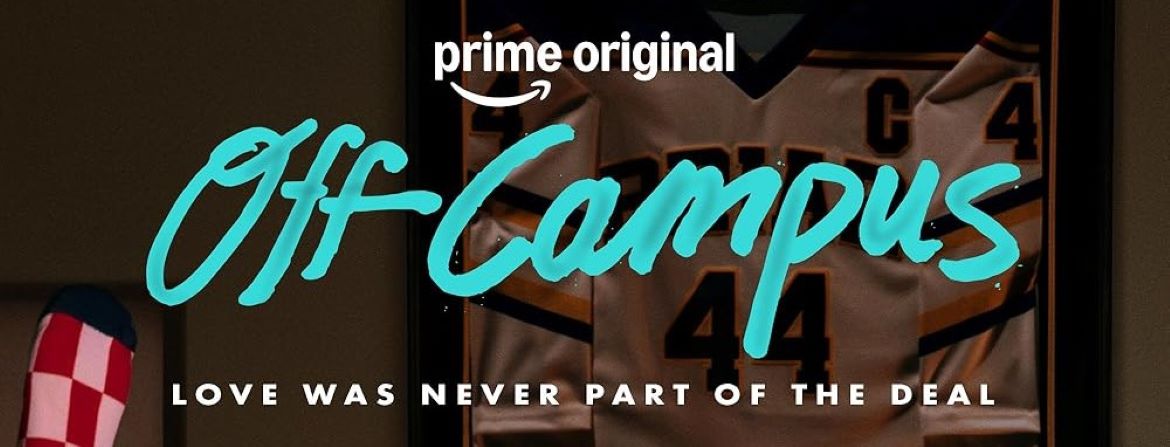
What Font Does Off Campus Use?
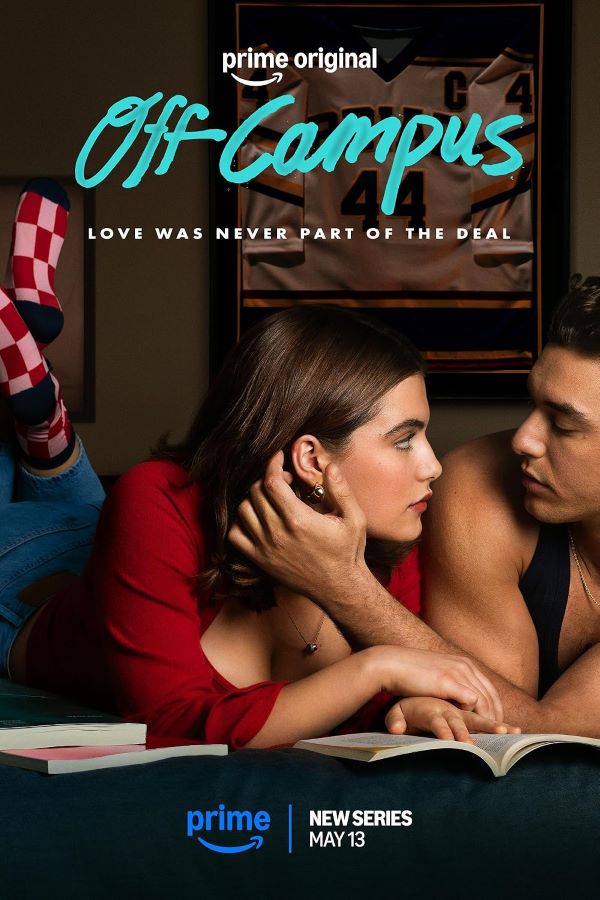
The Off Campus Font used in the film’s title design is a custom-designed handwritten typeface created specifically for the project’s branding and promotional materials. The lettering features a casual, organic style with natural pen strokes, fluid letterforms, and distinctive handcrafted details that give the title a personal and visually authentic identity. Because the original typeface is custom, it is not publicly available. However, there are free alternative fonts that closely capture its handwritten and casual appearance, making them suitable for fan art, poster recreations, and concept design projects.
About Off Campus
Off Campus is a romantic drama that explores the unexpected connection between a music student and the university’s star hockey player, set against the backdrop of college life. The film stands out through its authentic storytelling, character-driven narrative, and emotional depth, capturing the complexities of young love and the bonds that define adulthood. With a focus on genuine friendships and meaningful relationships, the movie resonates through its relatable portrayal of finding love in unexpected places. Its title typography, often inspiring designers searching for free fonts, plays an important role in establishing mood and visual recognition, helping reinforce the film’s warm, intimate identity across posters, marketing, and promotional materials.